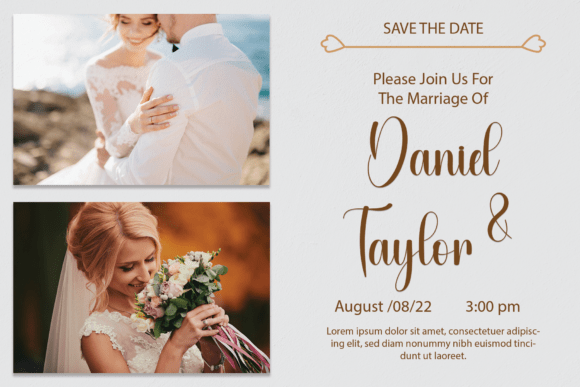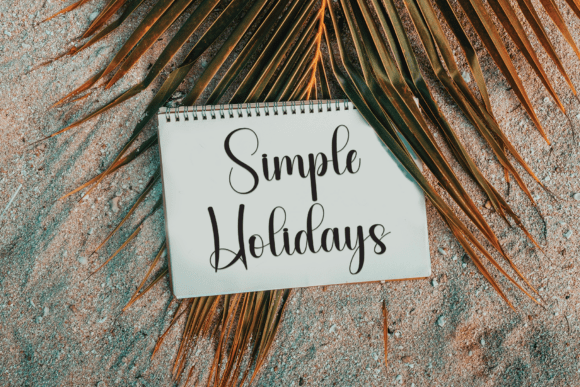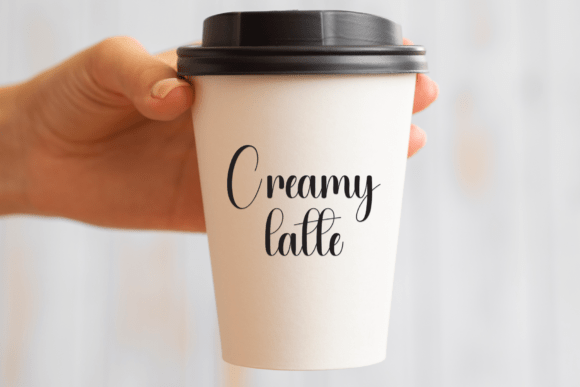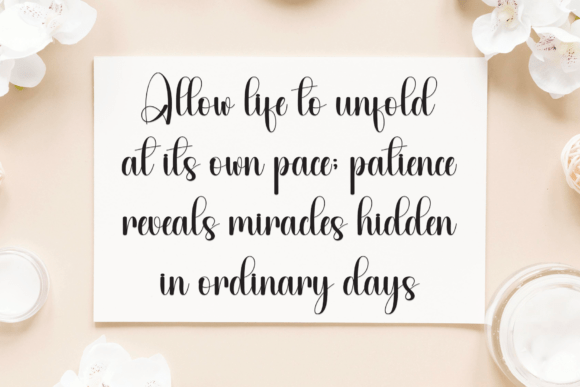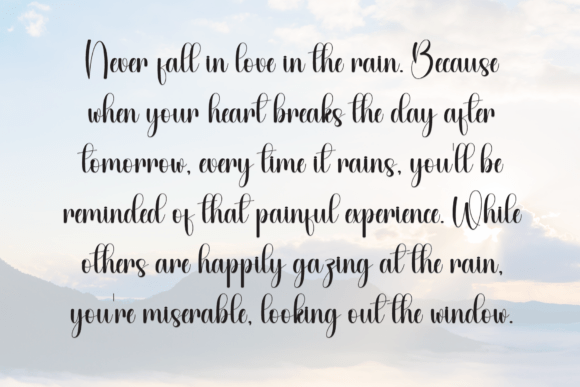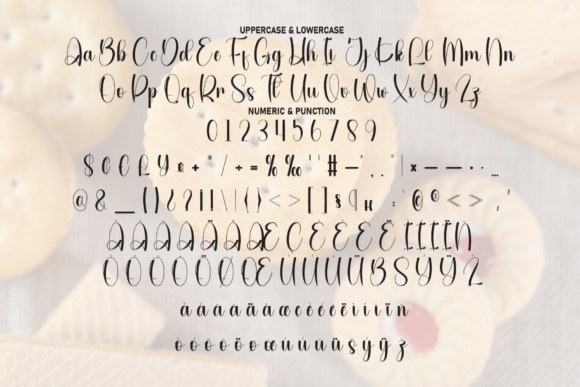
Biscuits Font: The Sweetest Addition to Your Design Collection
Are you tired of using the same old fonts in your designs? Look no further than the charming Biscuits Font, a delightful handwritten display typeface that exudes sweetness and friendliness. With its playful and cute elements, Biscuits Font is perfect for adding a joyful touch to your design landscape.
The Charm of Biscuits Font
Biscuits Font is a beautiful, handcrafted typeface that is sure to capture the hearts of designers and crafters alike. Its sweet and merry vibe makes it an excellent choice for wedding invitations, greeting cards, and all design opportunities that beg for a soft, playful touch. Whether you’re designing for a client or working on a personal project, Biscuits Font is sure to elevate your design story with its captivating charm and versatility.
What Makes Biscuits Font So Special?
So, what sets Biscuits Font apart from other fonts? Here are just a few of its unique features:
- Handwritten with love: Biscuits Font is a handwritten display typeface that is full of personality and charm. Each letter is carefully crafted to create a sense of warmth and friendliness.
- Playful and cute: With its playful and cute elements, Biscuits Font is perfect for designs that require a fun and lighthearted touch.
- Versatile: Whether you’re designing a wedding invitation or a greeting card, Biscuits Font is sure to add a touch of sweetness and charm to your design.
- Easy to read: Despite its playful nature, Biscuits Font is easy to read and understand, making it perfect for designs that require a clear and concise message.
Using Biscuits Font in Your Designs
So, how can you use Biscuits Font in your designs? Here are a few ideas to get you started:
- Wedding invitations: Add a touch of romance and whimsy to your wedding invitations with Biscuits Font.
- Greeting cards: Use Biscuits Font to create sweet and playful greeting cards for birthdays, holidays, and other special occasions.
- Social media graphics: Add a playful touch to your social media graphics with Biscuits Font.
- Branding and packaging: Use Biscuits Font to create a unique and memorable brand identity for your business.
Why Designers and Crafters Love Biscuits Font
Designers and crafters love Biscuits Font for many reasons. Here are just a few:
- Unique and eye-catching: Biscuits Font is a unique and eye-catching font that is sure to stand out in a crowded design landscape.
- Easy to use: Biscuits Font is easy to use and can be incorporated into a variety of designs.
- Versatile: Biscuits Font can be used in a variety of design applications, from wedding invitations to social media graphics.
- High-quality: Biscuits Font is a high-quality font that is designed to deliver exceptional results.
In conclusion, Biscuits Font is a delightful handwritten display typeface that is sure to add a touch of sweetness and charm to your designs. With its playful and cute elements, Biscuits Font is perfect for wedding invitations, greeting cards, and all design opportunities that beg for a soft, merry touch. Whether you’re a designer or crafter, Biscuits Font is sure to elevate your design story with its captivating charm and versatility.